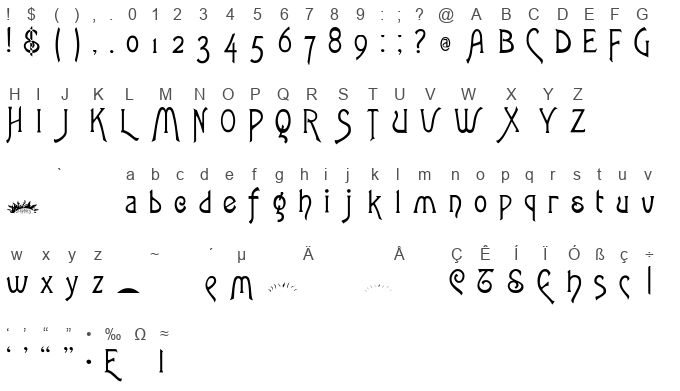
Fletcher-Gothic is a typeface designed by Alan Carr, showcasing a unique balance between historical gravitas and a contemporary twist. The design of Fletcher-Gothic draws its inspiration from the traditional Gothic fonts, known for their pointed arches and intricate detailing, reminiscent of the architecture and manuscripts of the medieval period. However, Carr manages to infuse a modern sensibility into this font, making it relevant and highly adaptable for today’s design needs.
This typeface distinguishes itself with its sharp, clean lines and vertical emphasis, which pay homage to the structural beauty of Gothic style. Each character in Fletcher-Gothic is meticulously crafted, featuring a combination of narrow and broad strokes that create a dynamic visual rhythm. The font exudes a sense of elegance and sophistication, yet its underlying strength and stability are palpable, reflecting the robustness of Gothic architecture.
Fletcher-Gothic is versatile and can be used in a variety of design contexts, from formal invitations and branding materials to digital platforms and editorial design. Its distinct personality allows it to stand out, whether it’s employed for headers, titles, or even body text in larger sizes. Alan Carr’s attention to detail and his ability to reinterpret historical motifs through a contemporary lens make Fletcher-Gothic a compelling choice for designers seeking a typeface with character and historical depth, yet fully functional for today’s varied design requirements.
Fletcher-Gothic